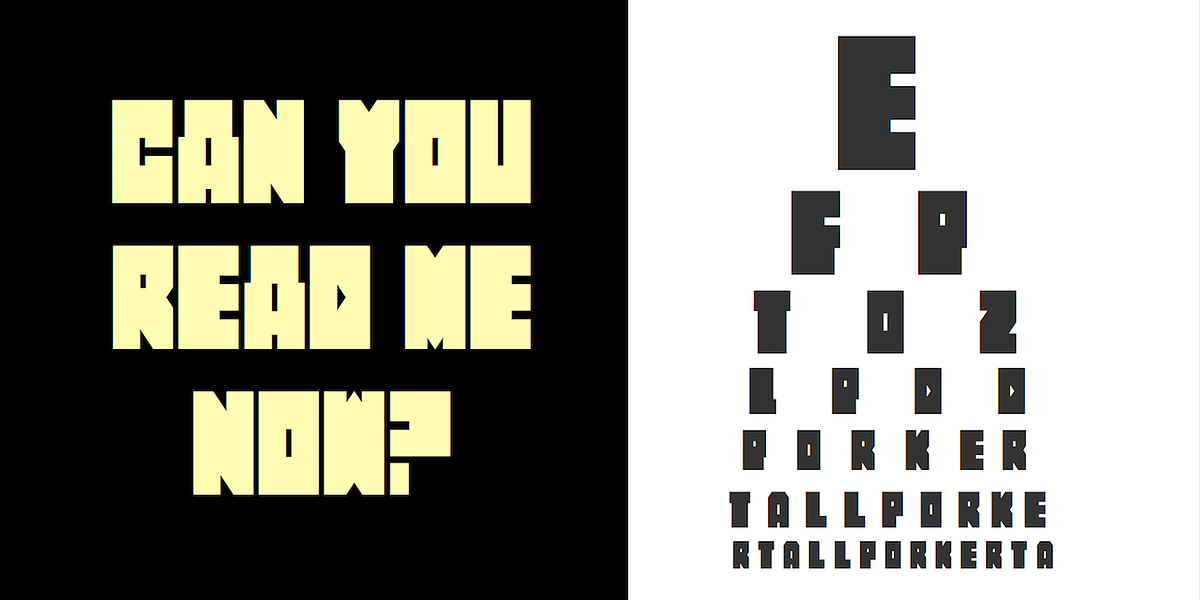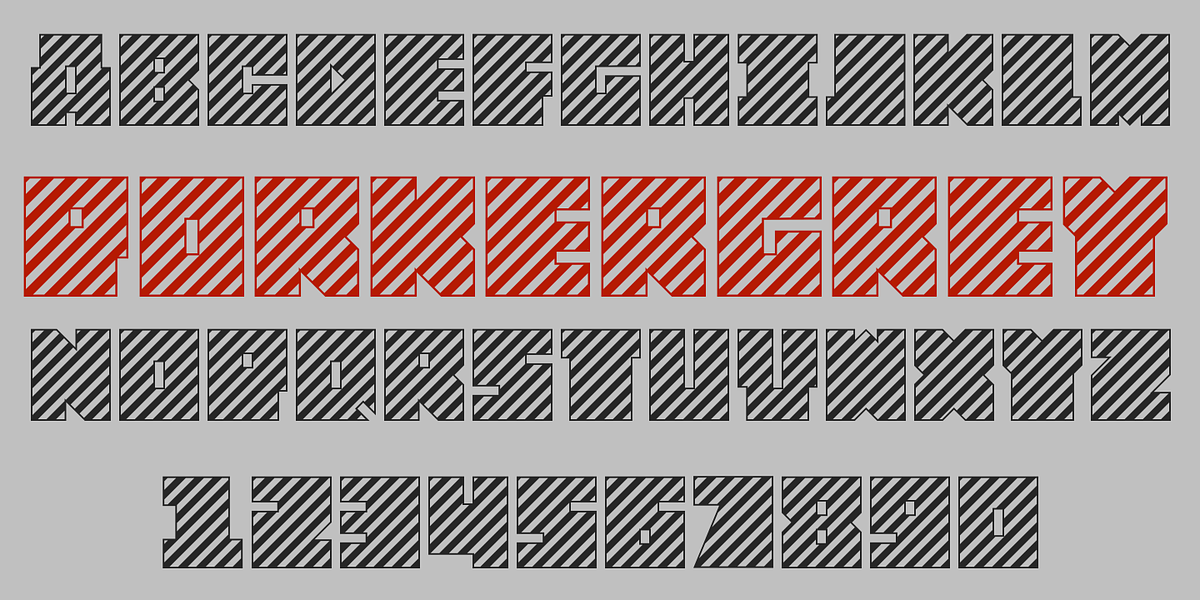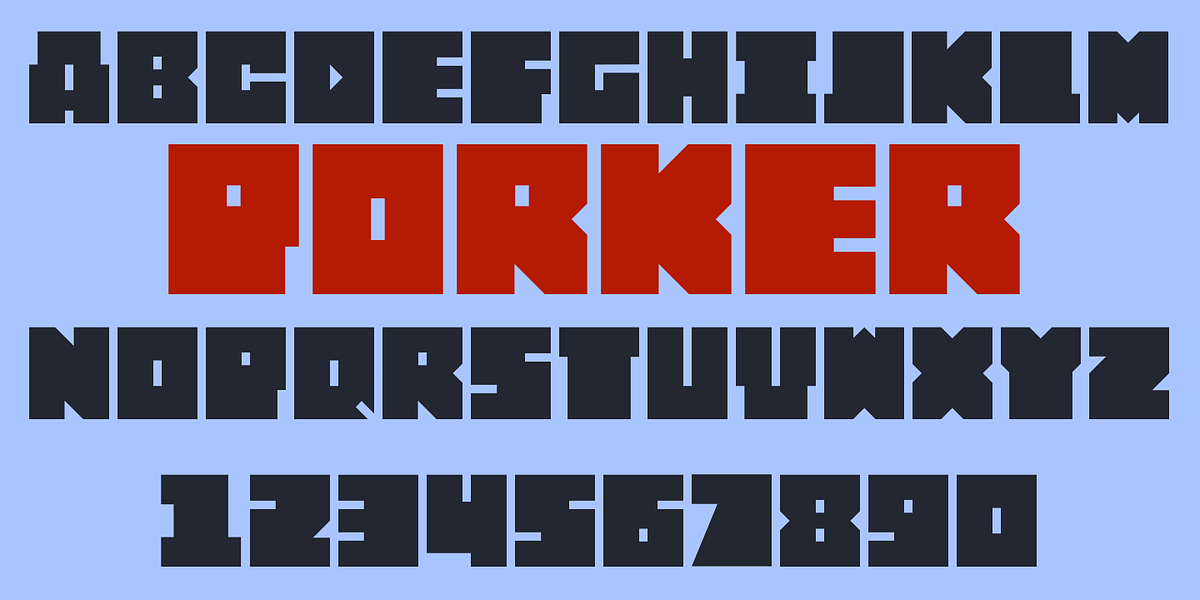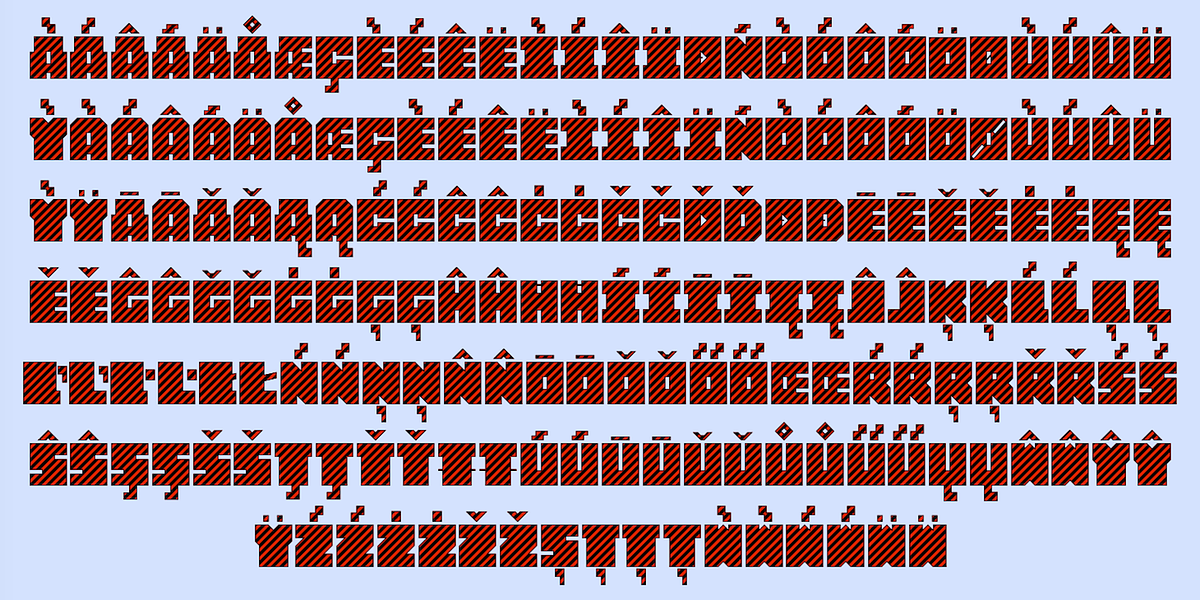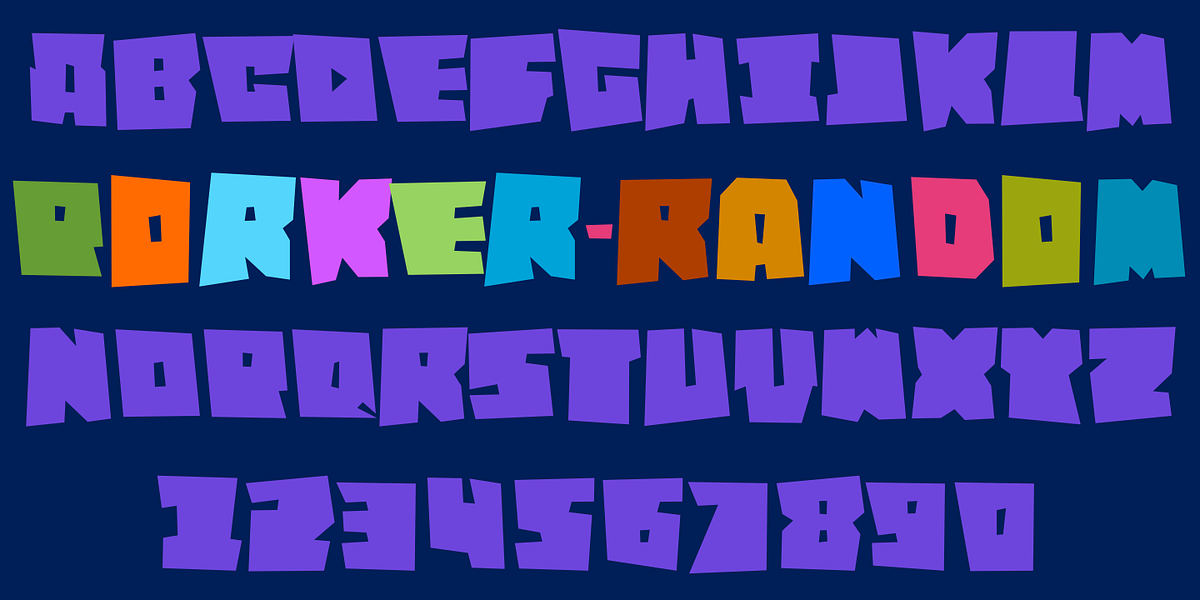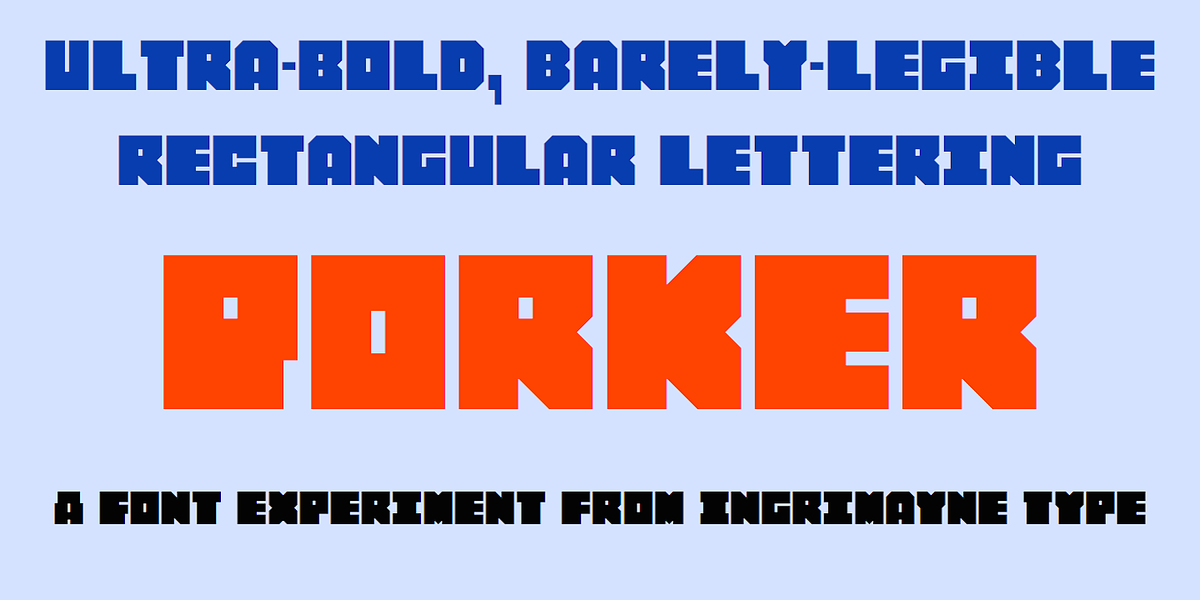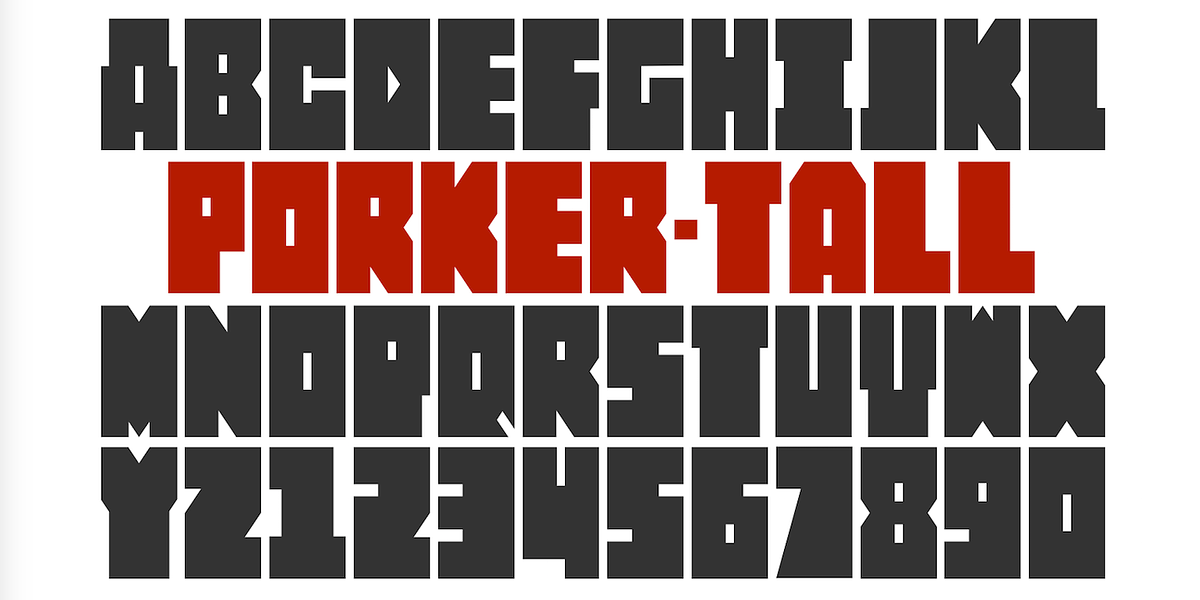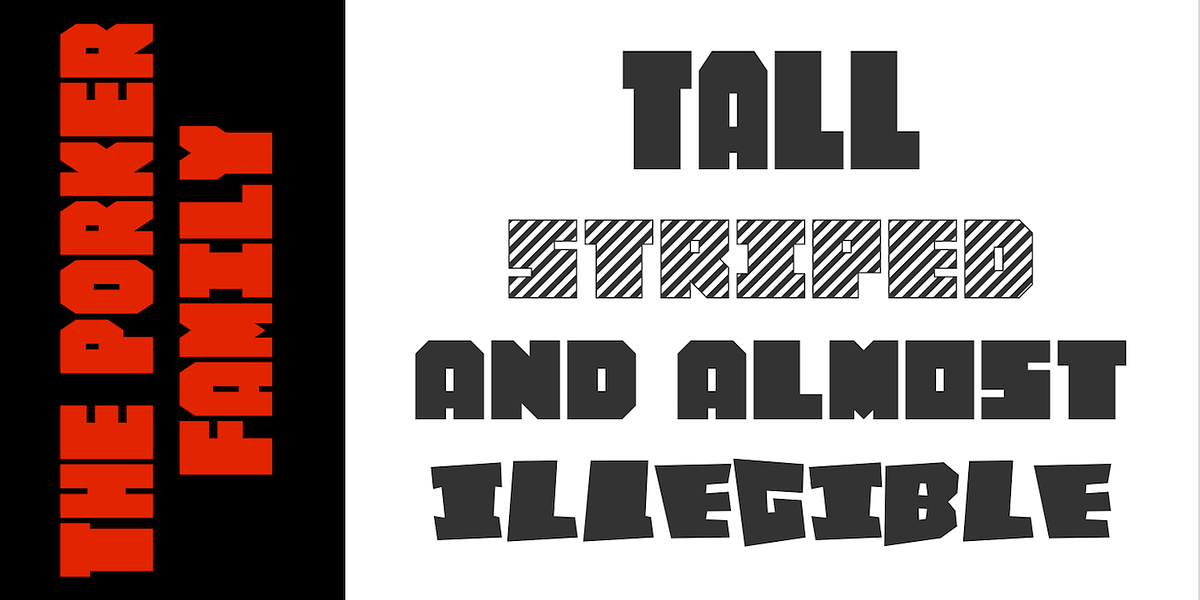
Porker
Porker is a bold, caps-only sans serif typeface designed for display purposes. Its unique characteristics include a square shape, pixelated appearance, and uneven letterforms with multilinear strokes. The font includes alternate characters for some lowercase letters, adding to its experimental nature.